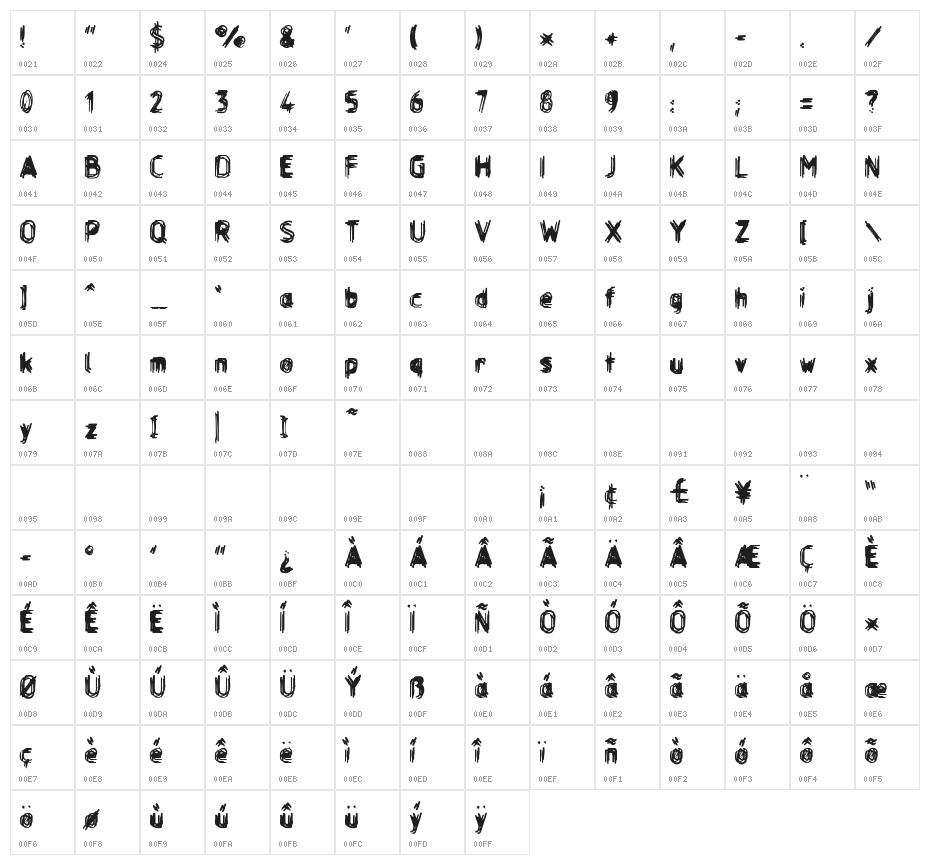
Layer Font
✎ Distorted Eroded
| Categorie | Distorted Eroded |
| Caso d'uso | Headlines, Logos, Artistic projects |
| Progetti proposti | Perfect for album covers, posters, graffiti art, and edgy branding projects. |